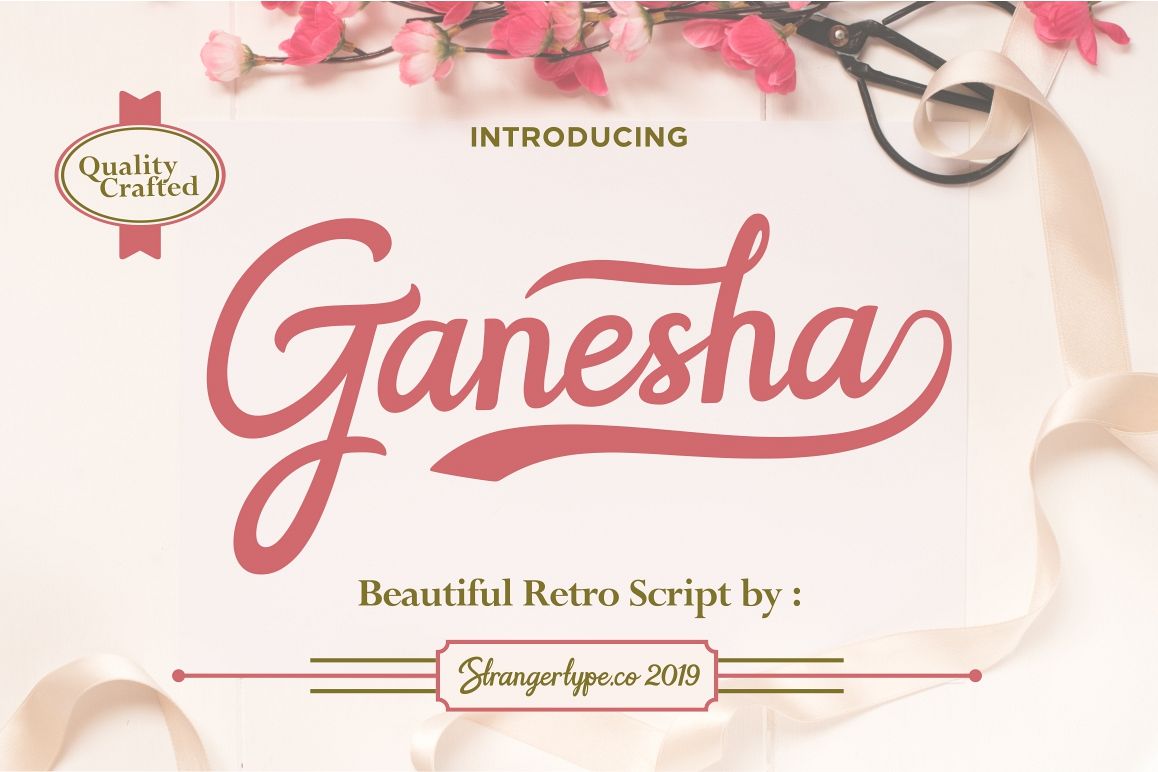
Ganesha - Wedding Font
Ganesha
Ganesha is a beautiful retro script font with neat curve and bold
line, In addition, i also made some decorative flower frames that
enhance the character of the font. It creates a luxurious and
elegant look in design, this font include ligature, swash, and character
alternates plus a bonus food icon design.
Ganesha font very
suitable for beautiful logo, poster, vintage signage, magazine,
photography, vintage lettering, and any other design project.